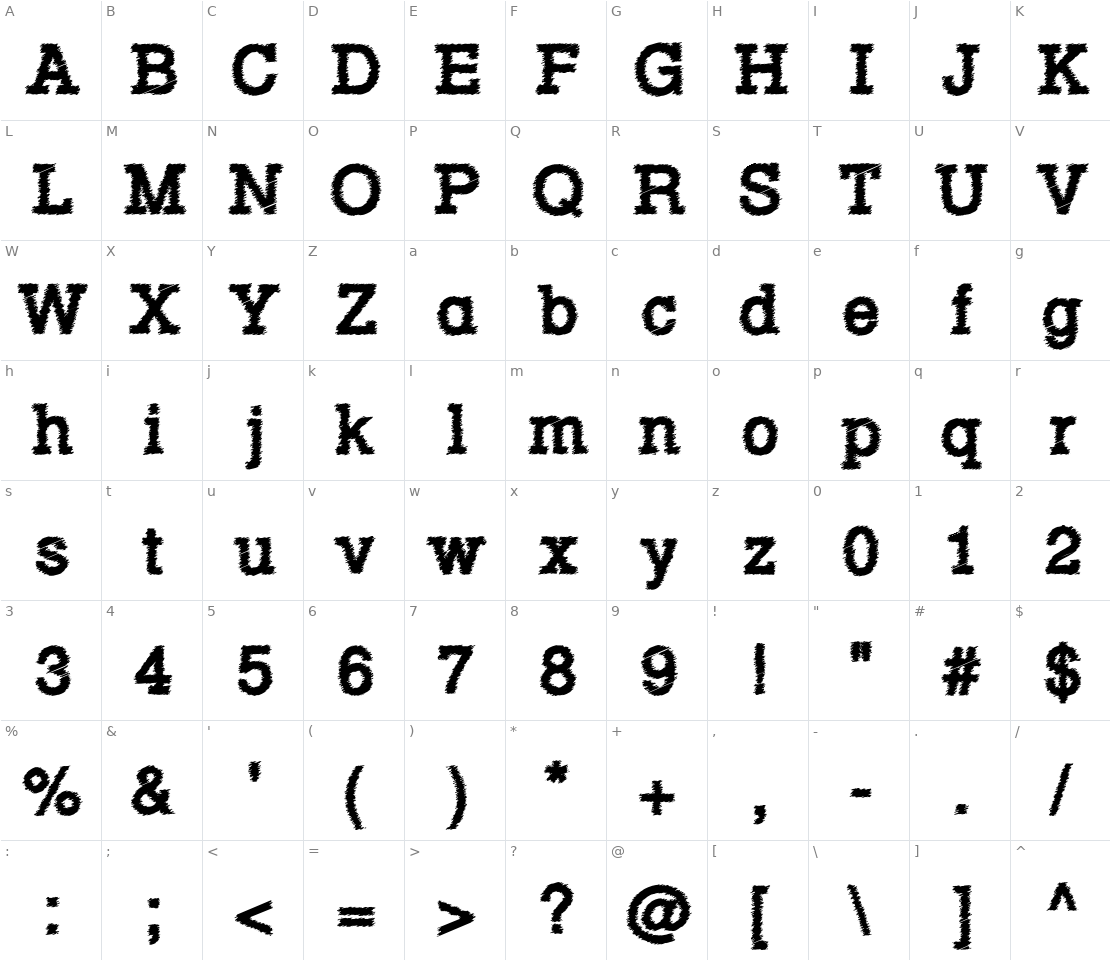
Rowdy Typemachine
by Evad
Rowdy Typemachine is a bold, beat-up typewriter face from Evad with heavy keystrokes and plenty of visible wear across every character. The letters look like they were hammered out on a machine that's seen decades of hard use, with rough edges and uneven ink coverage that give it genuine grunge credibility. Works best in headlines, posters, and editorial layouts where you want that raw, analog texture without the delicacy of a typical typewriter font.